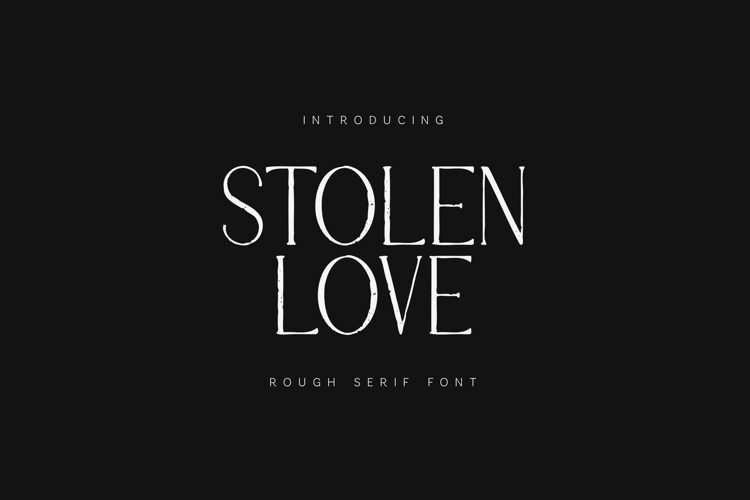
Stolen Love Rough Serif Font
Stolen Love is a rough serif font infused with raw emotion, organic texture, and a handcrafted aesthetic. Featuring irregular edges, distressed details, and expressive serif forms, this typeface captures a poetic, imperfect beauty that feels human and deeply atmospheric.
Designed for impactful storytelling, Stolen Love is ideal for posters, album covers, book covers, quotes, branding, film titles, editorial headlines, and artistic projects that require character and soul. Its textured finish adds depth and authenticity, making each word feel evocative.
Stolen Love is crafted for designers who want typography that feels emotional, imperfect, and unforgettable—where rough details turn words into stories.